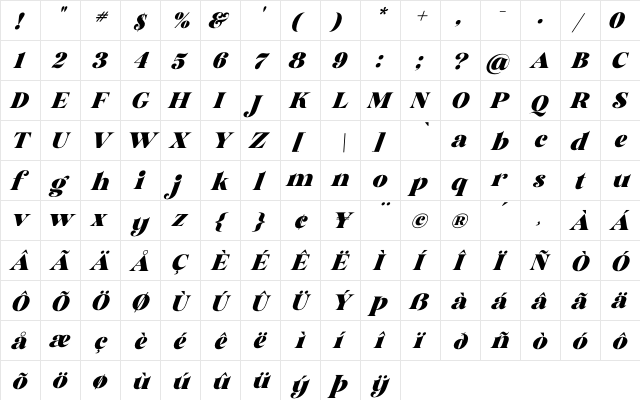
Glory Sunshine Italic Regular
Design Context for Glory Sunshine Italic Typeface
Glory Sunshine Italic takes a measured approach to typography — its balanced proportions and neutral character make it a reliable workhorse for both digital and print work. The dynamic lean of this cut emphasises speed and emphasis in any layout.
Pro Tip: Try Glory Sunshine Italic for annotation and caption copy alongside an upright companion — the contrast in angle creates a dynamic but ordered typographic system.